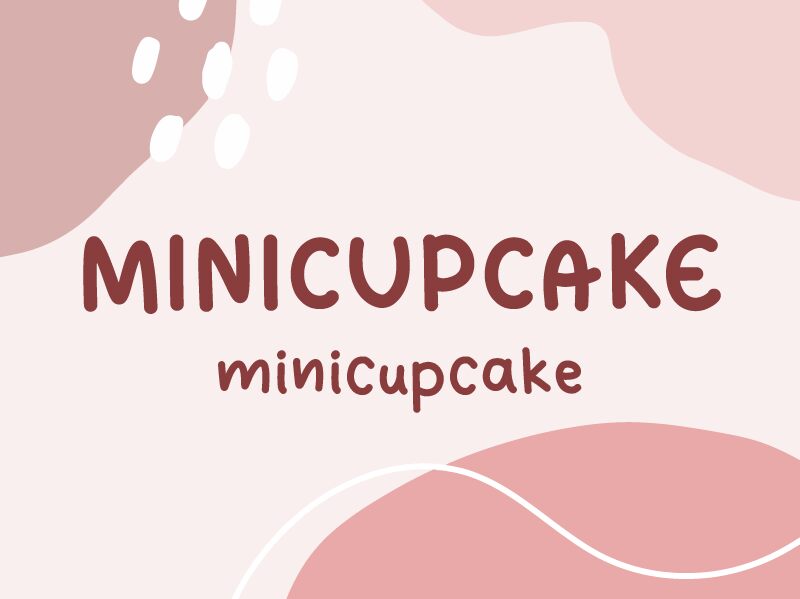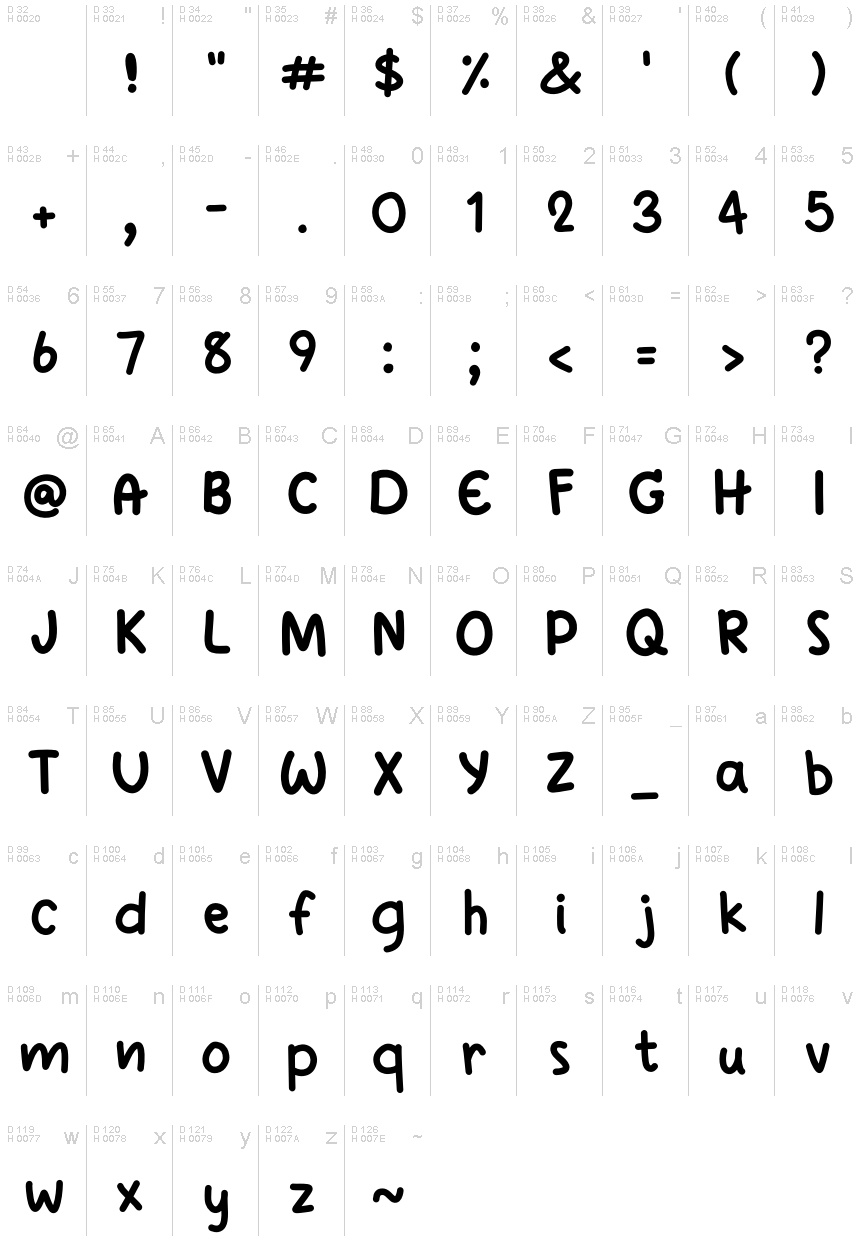
Mini cupcake Regular
Brimming with whimsical charm, the Mini Cupcake font by Sivaporn Yutitham exudes a delightful, handwritten aesthetic. Its playful, rounded letterforms and organic strokes capture the essence of a freshly baked confection, infusing any design with a touch of sweetness. This distinctive font effortlessly bridges the gap between playfulness and sophistication, making it a captivating choice for a wide array of creative projects.
This versatile font shines in applications that require a personal, handcrafted touch, such as branding for bakeries, cafes, and confectioneries. Its inviting and approachable nature also lends itself well to stationery, greeting cards, and packaging design, where a warm, handwritten feel can elevate the overall aesthetic. Furthermore, the Mini Cupcake font's charming character makes it a delightful selection for children's books, party invitations, and other whimsical design endeavors.